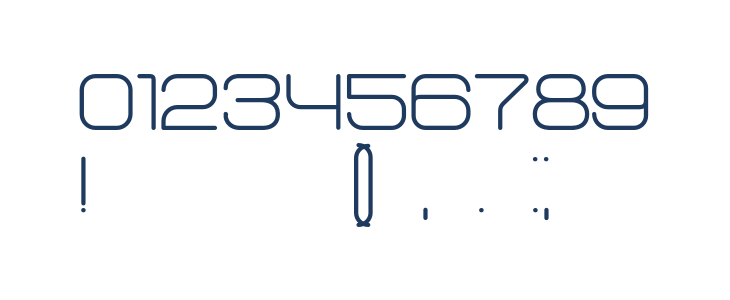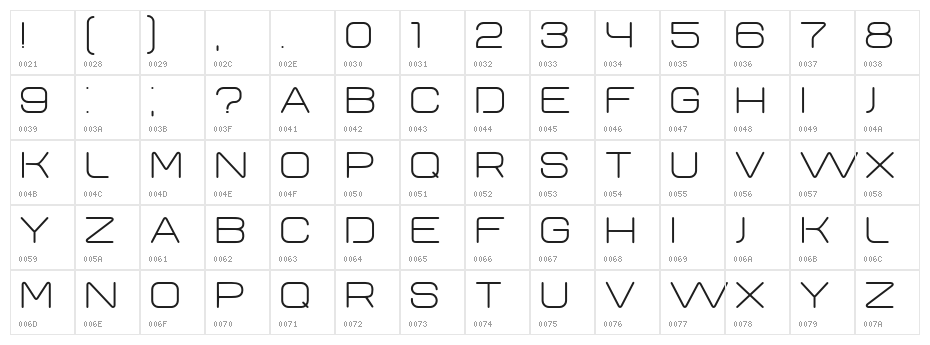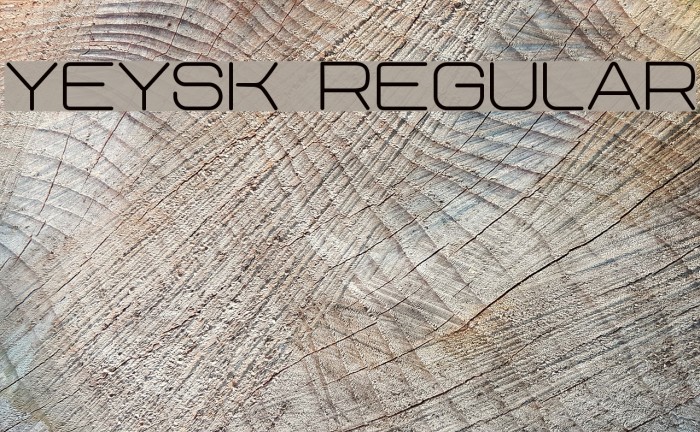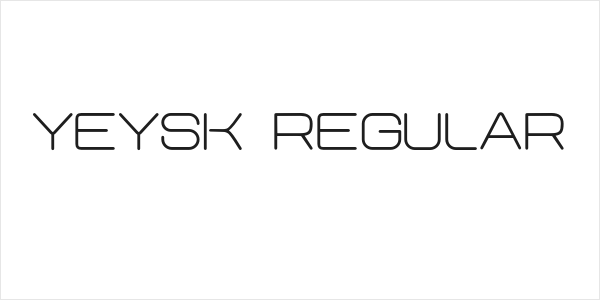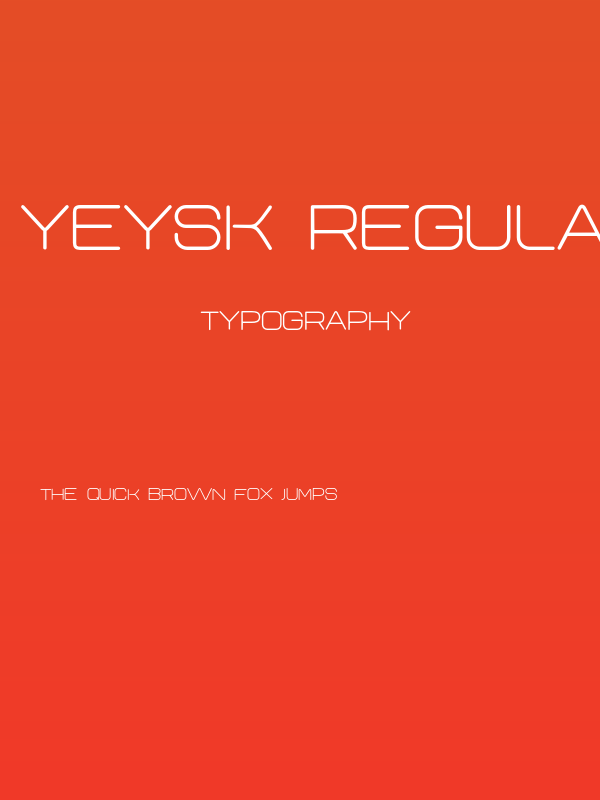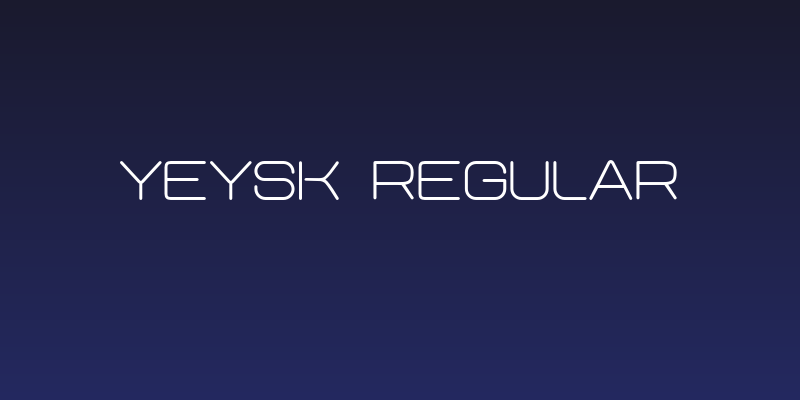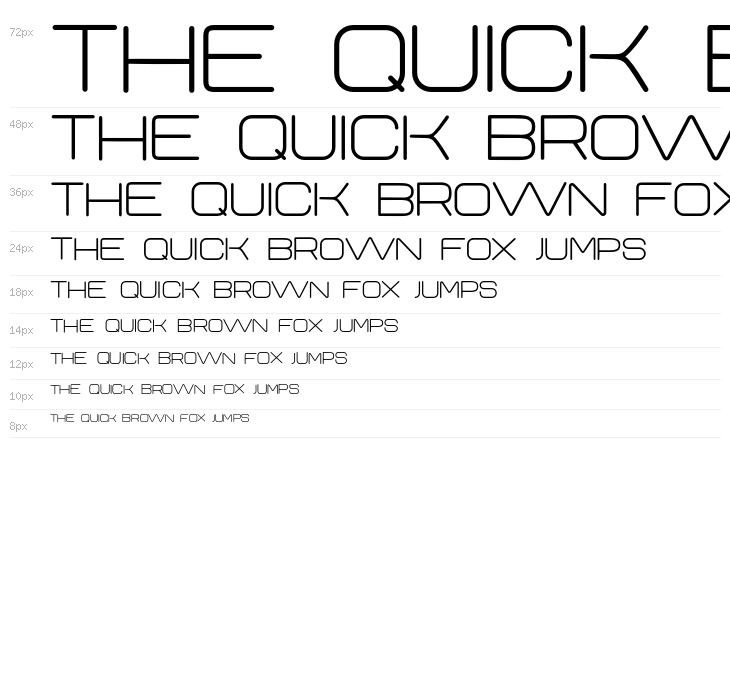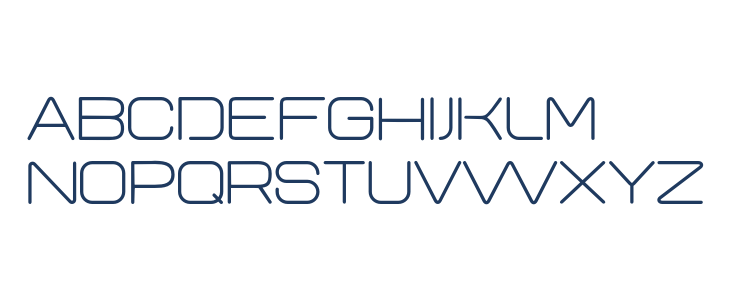
Yeysk Regular Font
Yeysk Regular Description
This font features a sleek, modern design with clean lines and a geometric structure. The characters are uniform in width, giving it a monospaced appearance, yet they maintain a sense of elegance and simplicity. The rounded edges and consistent stroke width contribute to its contemporary aesthetic. The uppercase and lowercase letters are well-balanced, and the numerals are distinct and easily readable. Special characters are designed with the same attention to detail, ensuring a cohesive look across all elements. This font is ideal for projects that require a modern and professional touch.
| Use Case | Headlines, Logos, Digital Interfaces |
| Proposed Projects | Ideal for tech branding, modern web design, digital interfaces, and minimalist posters. |